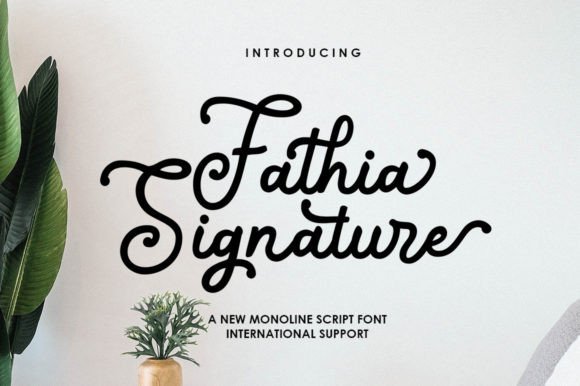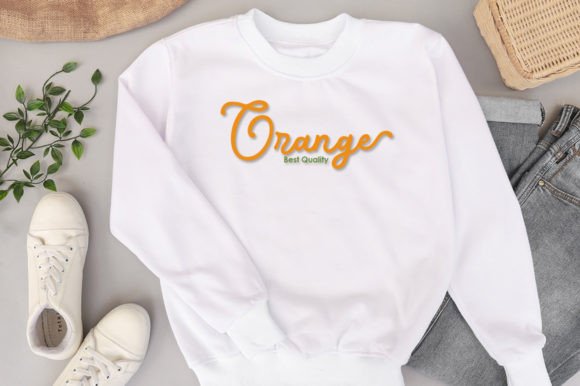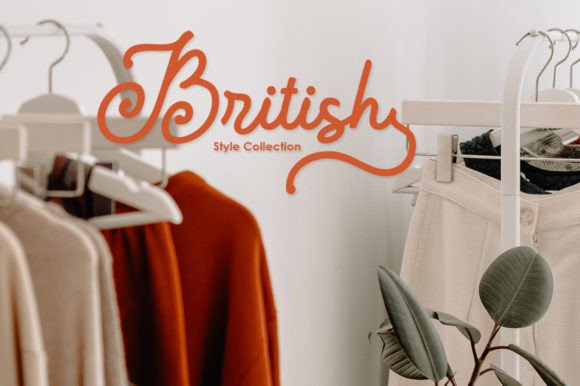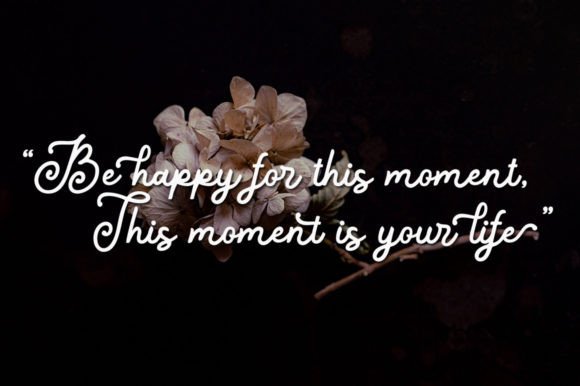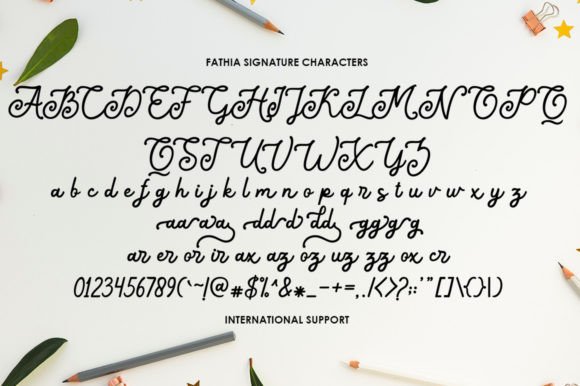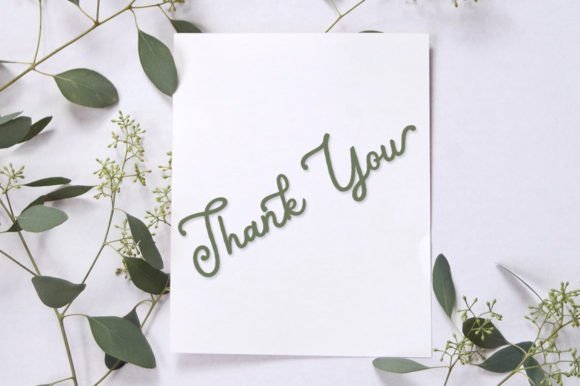
Fathia Signature Font
About Fathia Signature Font
“Fathia Signature” is an exquisite handwritten font that exudes elegance and sophistication. This font is expertly designed to combine classic calligraphic influences with a contemporary and fresh style. It is a versatile font that can elevate your design projects to new heights, making it an excellent choice for various applications.
The font’s signature style is characterized by its graceful and well-crafted characters. It maintains a sense of class and timeless beauty while adding a modern twist, making it suitable for a wide range of projects. Whether you’re working on branding, logos, invitations, greeting cards, or any design that requires a touch of sophistication, “Fathia Signature” delivers stunning and memorable results.
In the world of design, fonts play a pivotal role in defining the visual identity and mood of a project. “Fathia Signature” excels in these aspects by offering a handwritten font that combines elegance, class, and contemporary appeal. Its PUA encoding ensures easy access to all the glyphs and swashes, providing you with creative flexibility.
In summary, “Fathia Signature” is a font that brings an exquisite and classy touch to your design projects, making them visually captivating and refined. Whether you’re working on elegant invitations, luxury branding, or any project that demands a signature style, “Fathia Signature” is the font that can help you achieve stunning and sophisticated results.